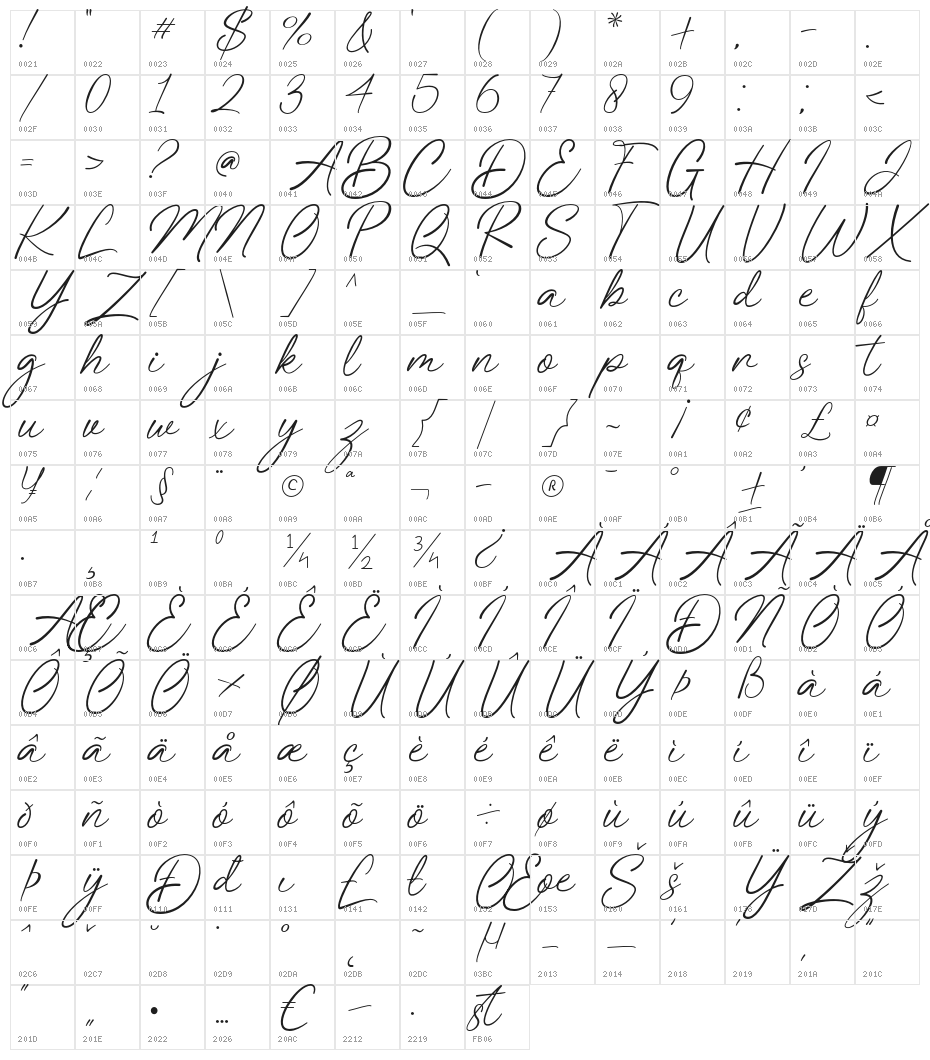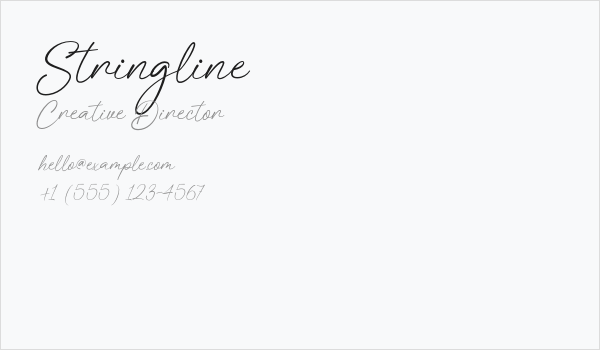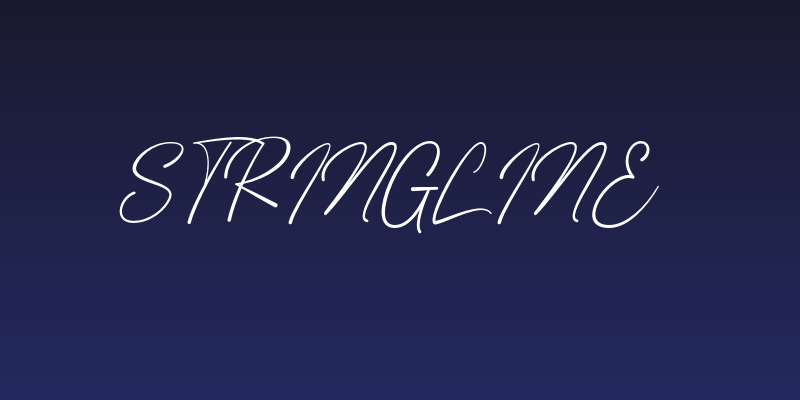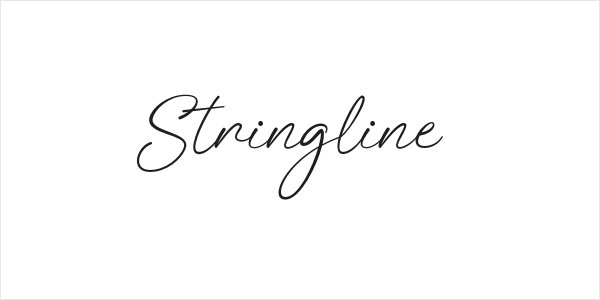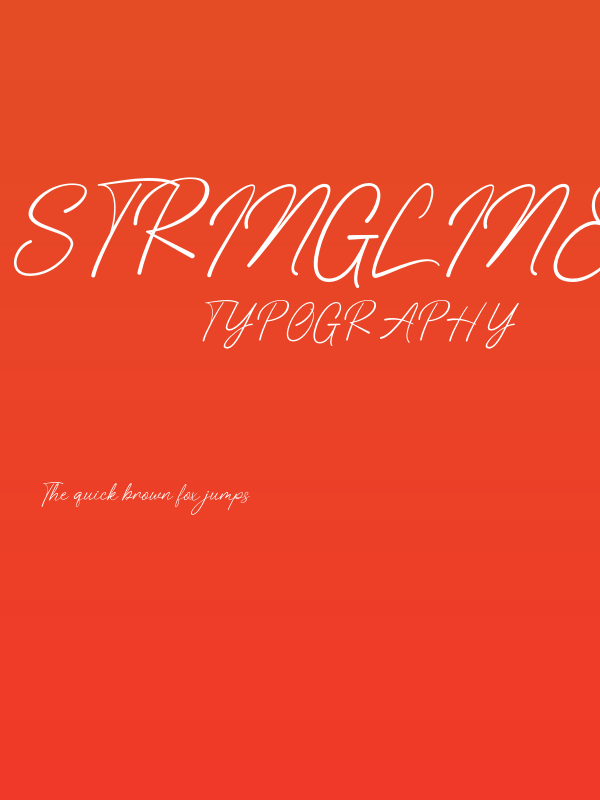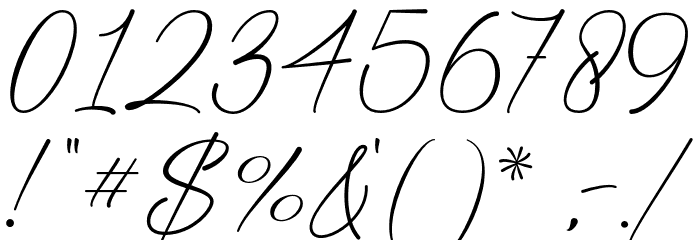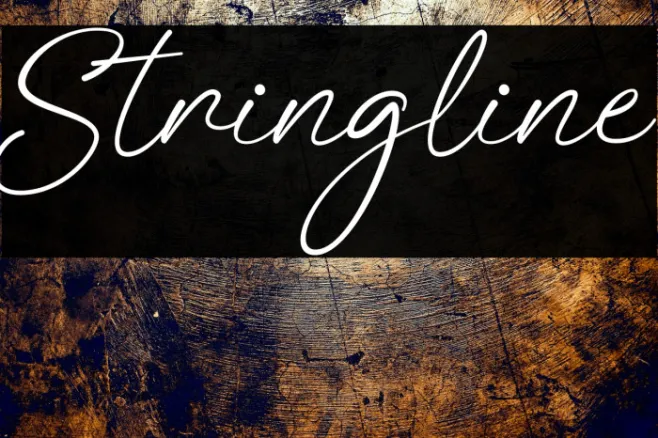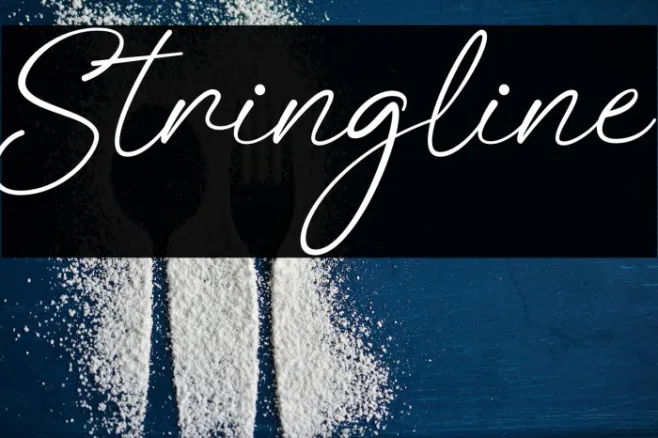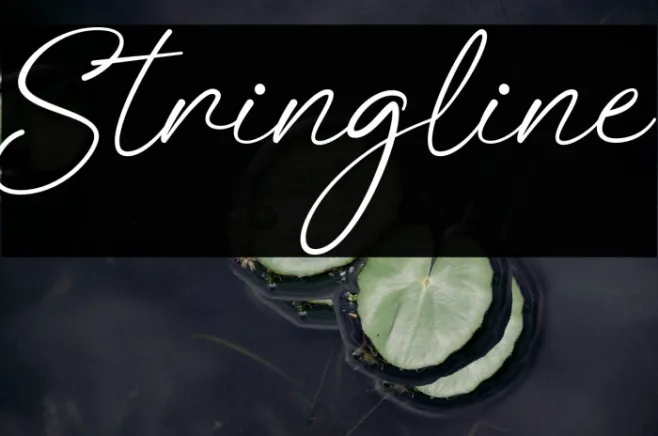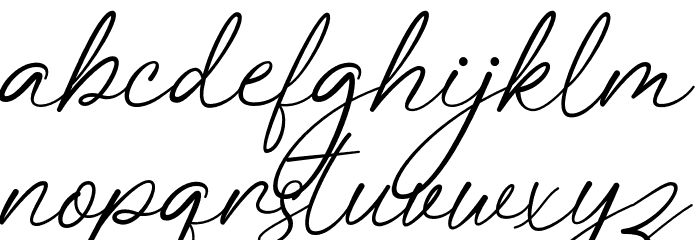
Stringline Font
Stringline Description
This elegant script font features a flowing, cursive style that mimics natural handwriting. The uppercase letters are slightly more ornate, with graceful loops and curves, while the lowercase letters maintain a consistent, smooth flow. The numbers and special characters are designed to match the overall aesthetic, providing a cohesive look. The font's thin strokes and slight slant give it a sophisticated and stylish appearance, making it ideal for formal invitations, elegant branding, or artistic projects. Its delicate lines and fluid connections between characters create a sense of movement and grace.
| Overall Style | Elegant |
| Use Case | Invitations, Branding, Artistic projects |
| Proposed Projects | Ideal for wedding invitations, elegant branding, artistic projects, and personal stationery. |